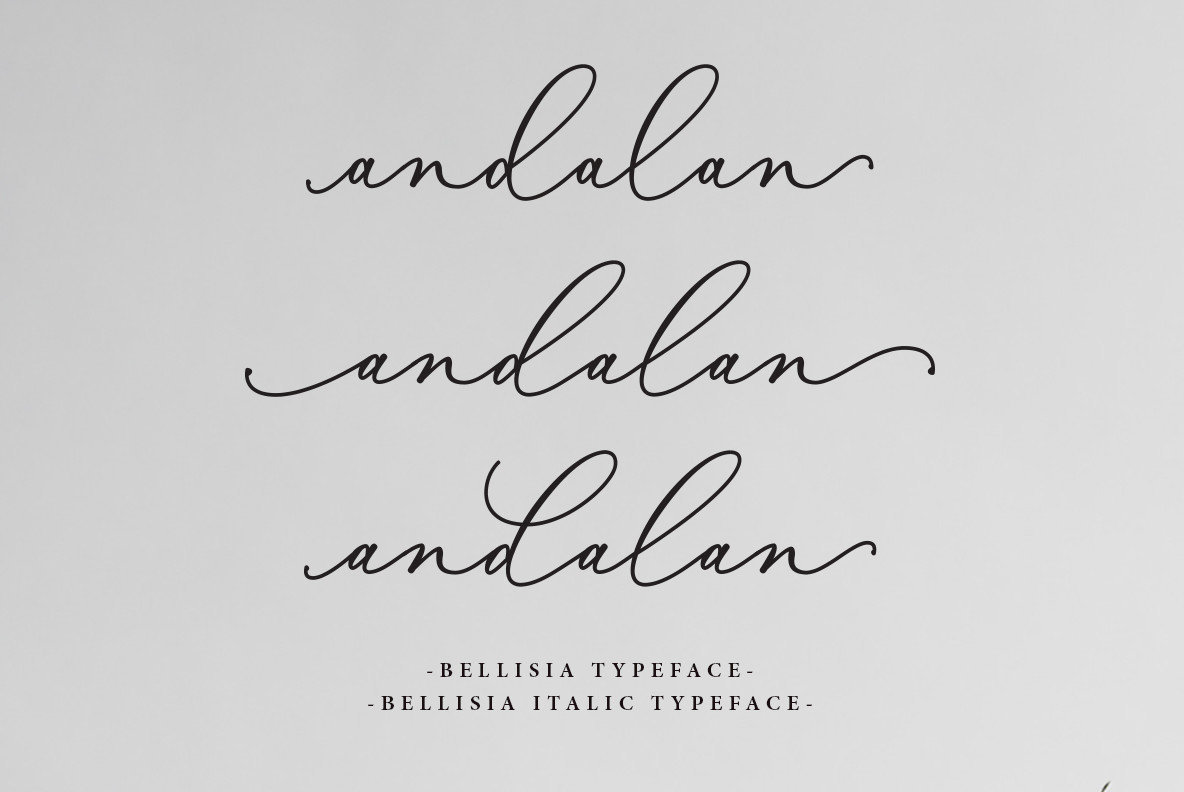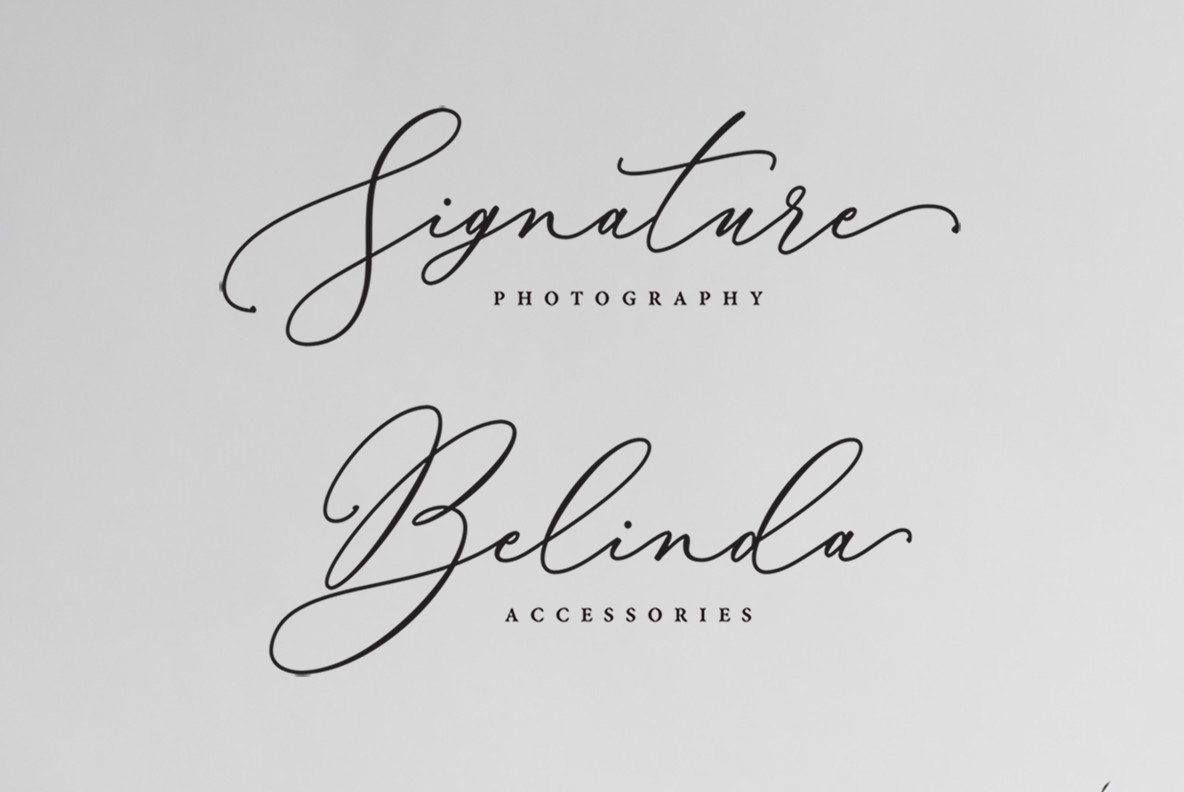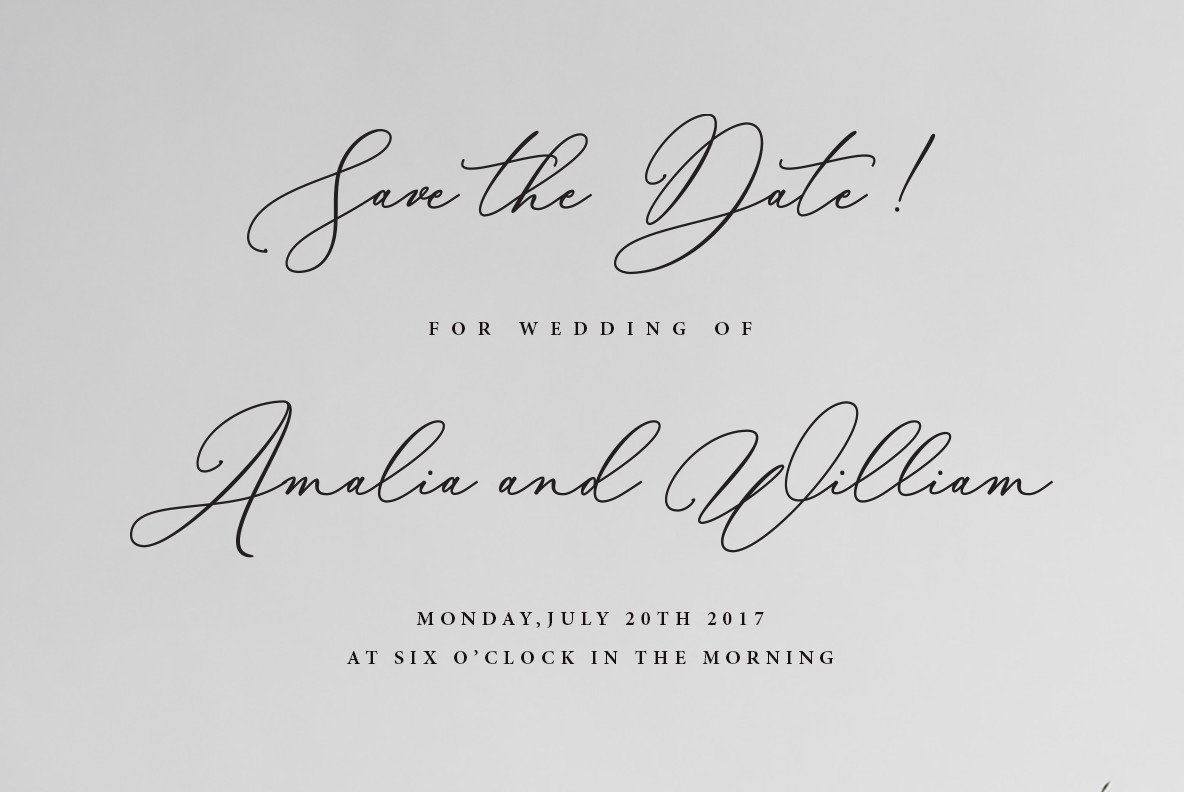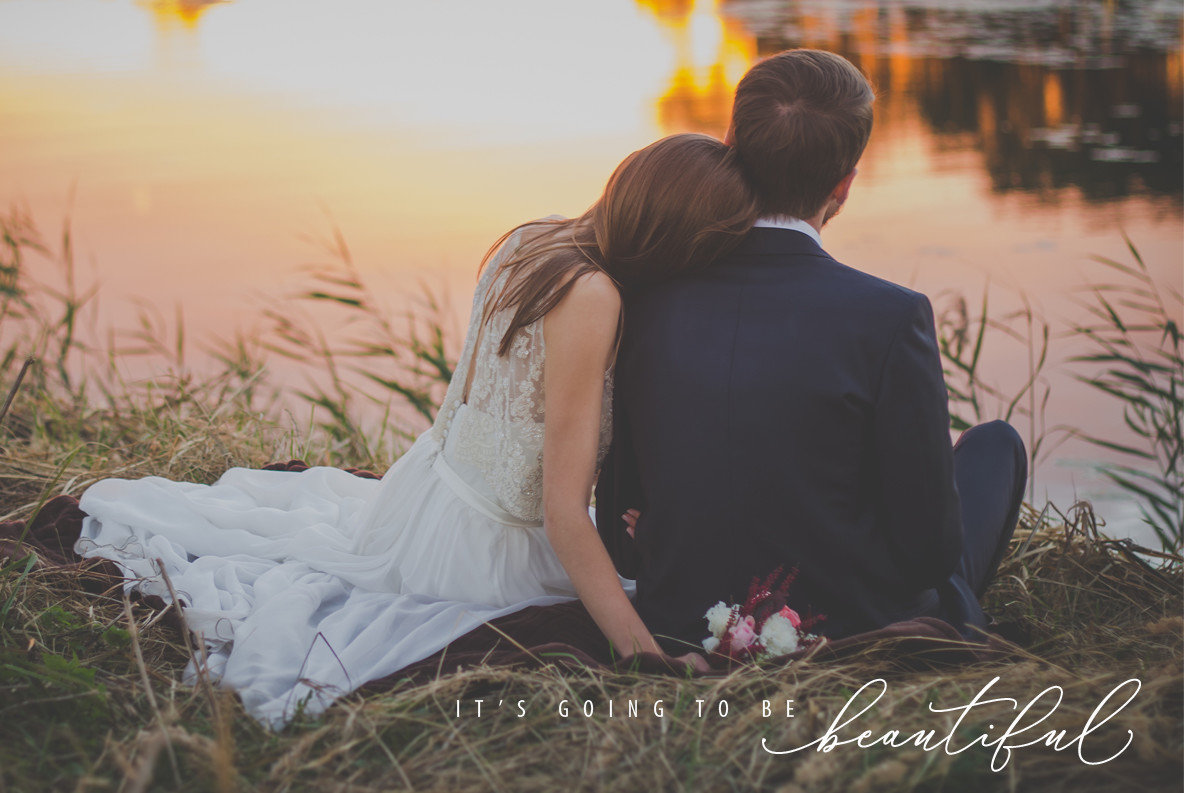
Bellisia Script Font
Bellisia Script offers a touch of modern calligraphy that enhances your creative projects with elegance. This font is perfect for logotype design, website headers, fashion graphics, wedding card design, and more. The versatility of Bellisia Script is accentuated by its availability in both regular and italic styles, allowing designers to adapt to various aesthetics seamlessly. Utilize programs like Adobe Illustrator, Photoshop, Indesign, or Corel Draw to unlock the full potential of its alternate glyphs through OpenType features. Bellisia Script is crafted to meet the sophisticated needs of contemporary design while providing the tools for creative expression.Bellisia Script: Modern Calligraphy Elegance